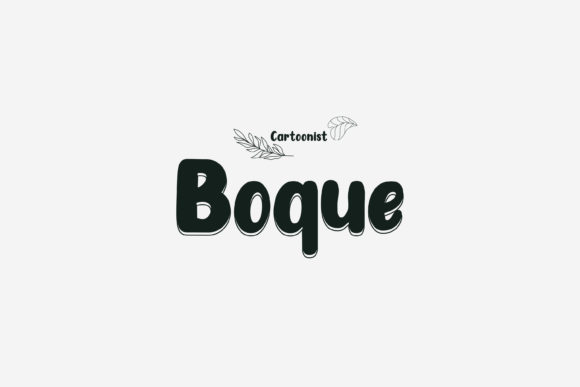
Get ready to step into a world of unique and captivating typography with Boque Font, the ultimate display font designed to elevate your designs to new heights. This remarkable font, crafted with precision and creativity by the talented BeeType, is a visual masterpiece that will transform your projects into stunning works of art.
Unleash your creativity and embark on a typographic adventure like no other. Boque Font's captivating glyphs dance across the screen, creating a symphony of visual harmony. Its bold strokes and playful curves add a touch of whimsy and sophistication to any project, making it the perfect choice for logos, branding, posters, invitations, and more.
Dive into a sea of versatility with Boque Font. Its adaptable nature seamlessly blends with various design aesthetics, from classic and elegant to modern and edgy. Whether you're working on a sleek minimalist logo or a vibrant and playful poster, Boque Font effortlessly adapts to your vision, ensuring your message shines through.
Boque Font is more than just a collection of letters; it's an expression of your individuality and style. Its distinct character adds a touch of personality to your designs, making them stand out from the crowd. Embrace the power of Boque Font and let your creativity soar.
With Boque Font as your typographic weapon, you'll conquer the design world with ease. Its limitless potential empowers you to craft designs that captivate, inspire, and leave a lasting impression. Unleash the magic of Boque Font today and unlock a world of endless creative possibilities.